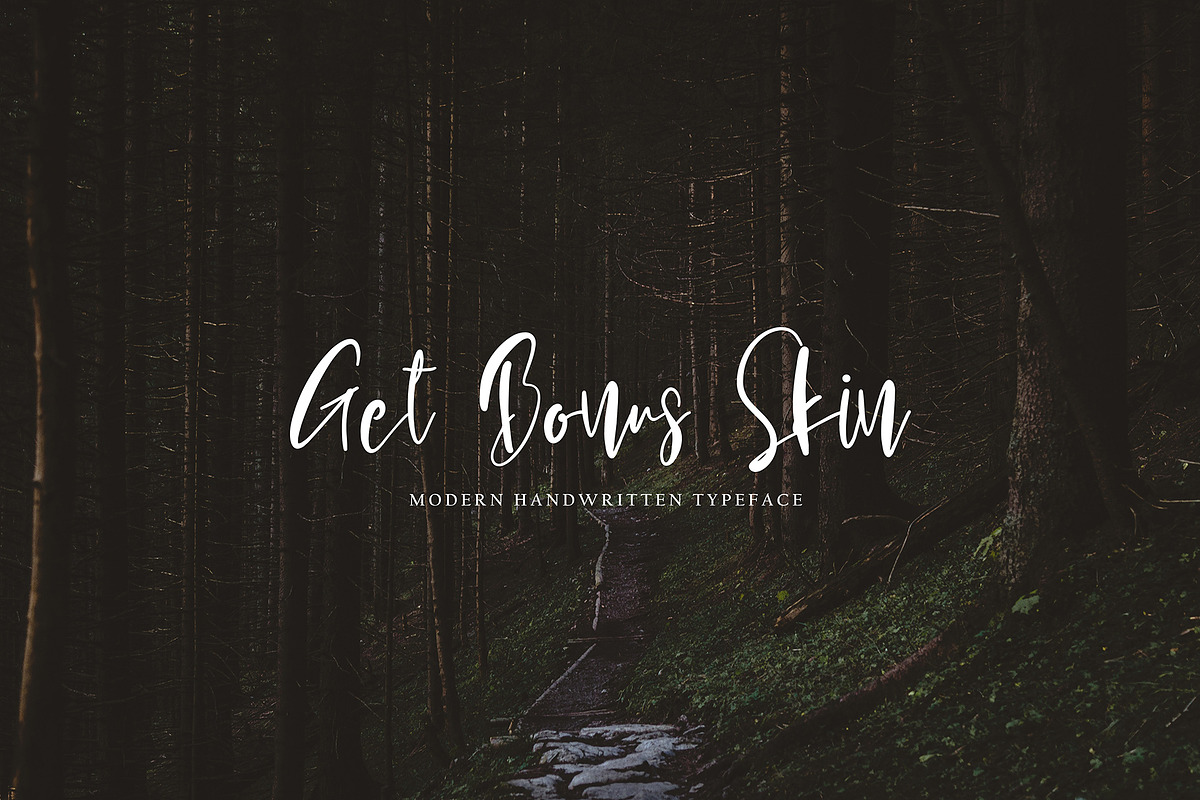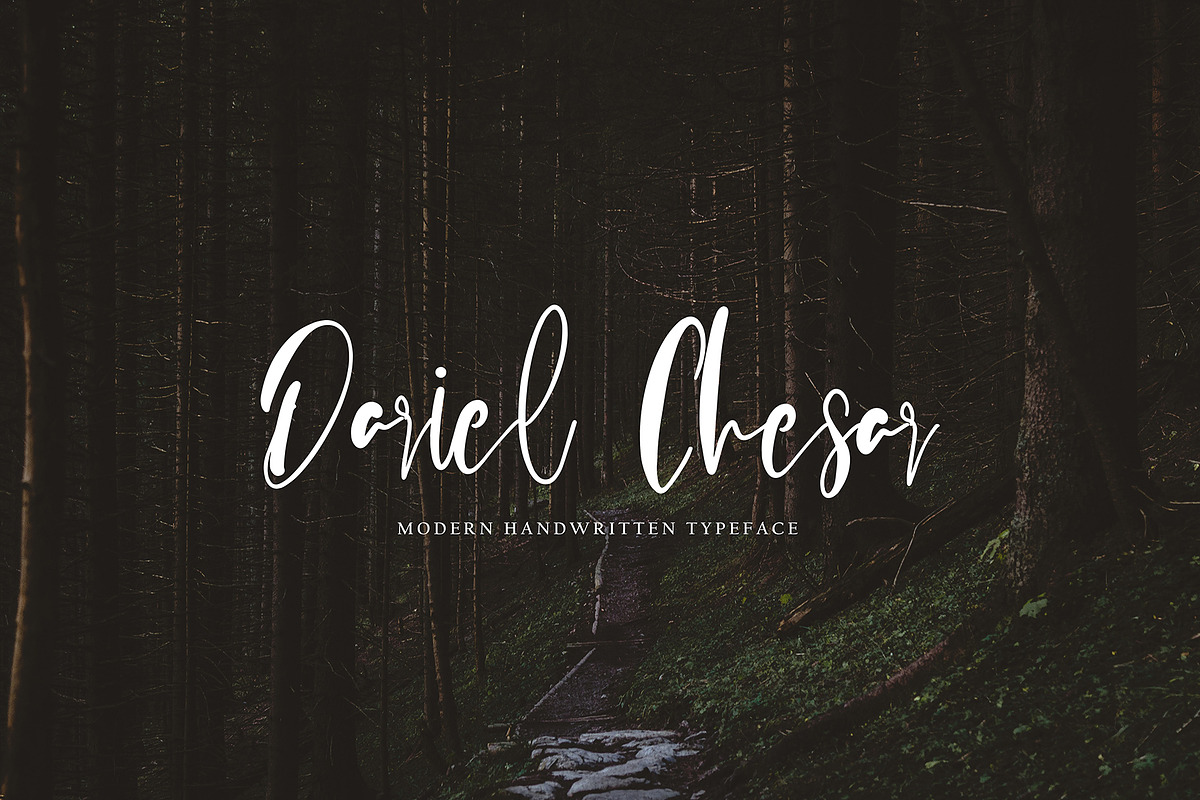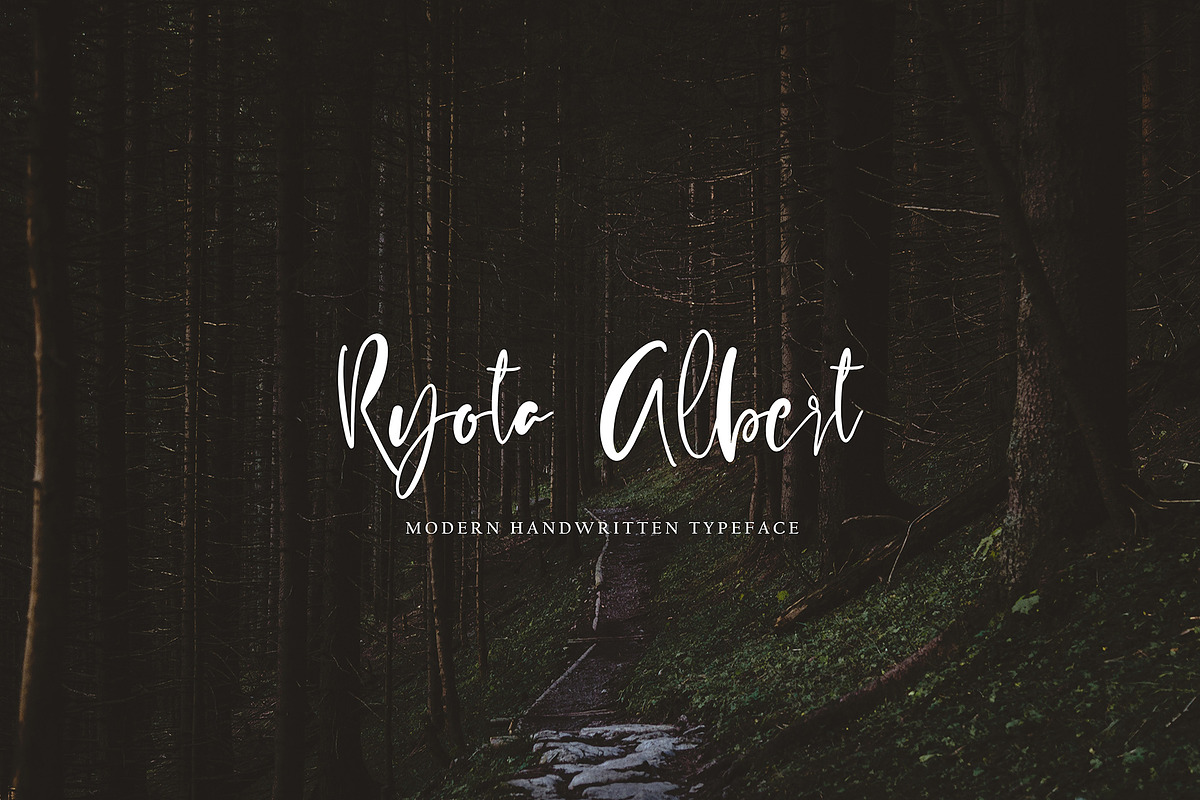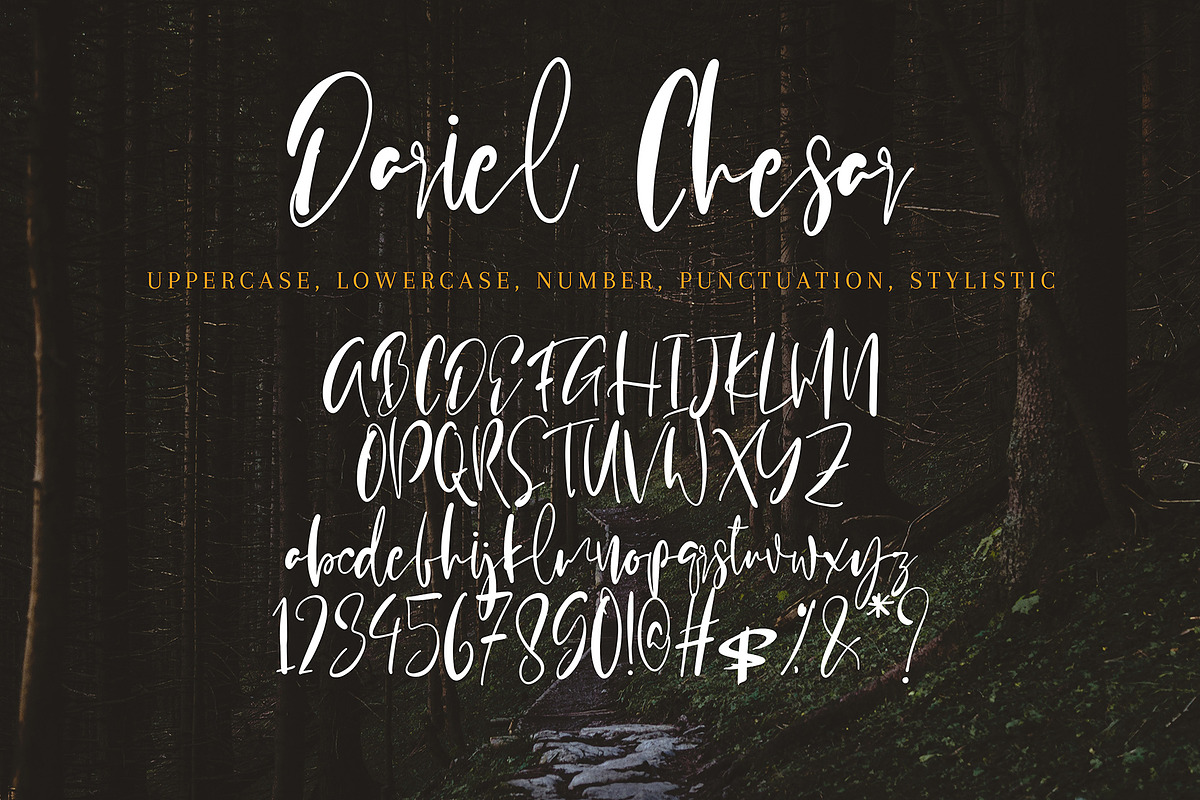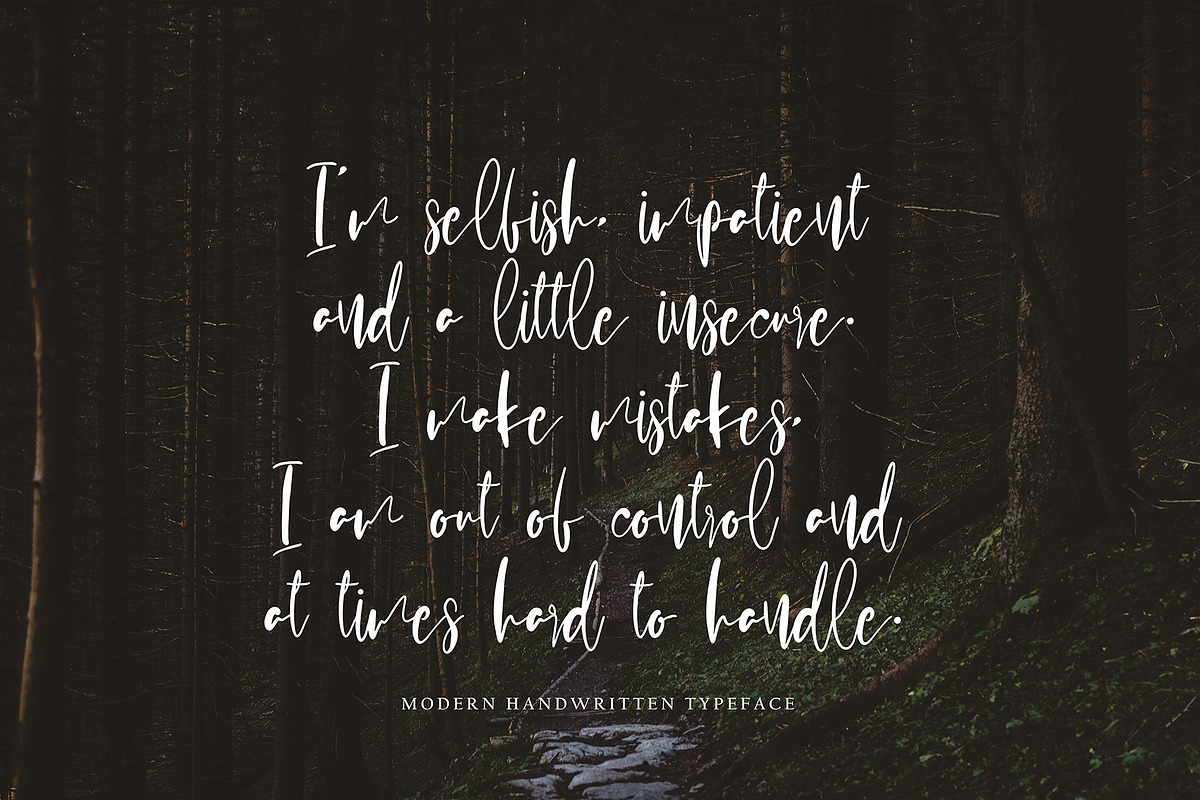
Dariel Chesar
Dariel Chesar with new style, this font will perfect for many different project ex: quotes, logo, blog header, poster, banding, letter, invitation, stationery, etc...